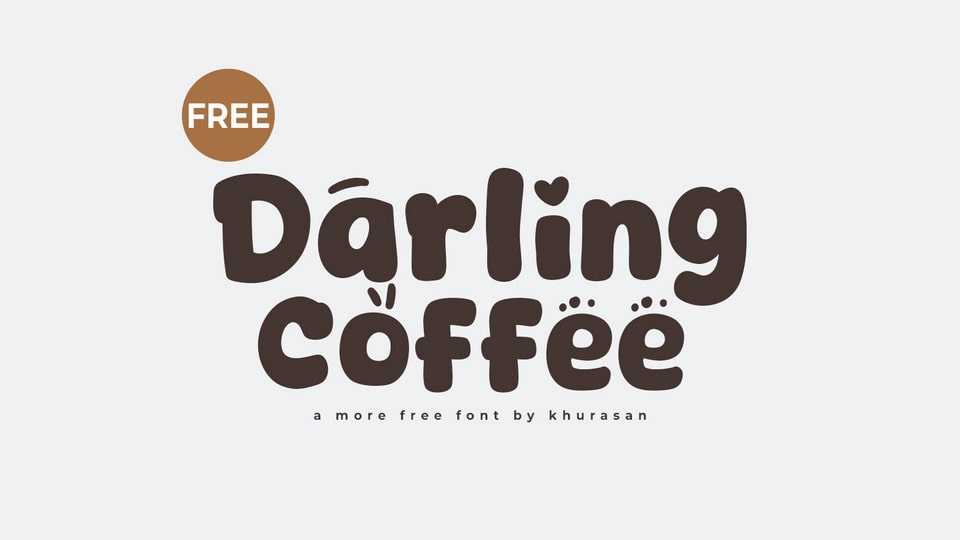
Download Darling Coffee font, a cute and playful hand-drawn cartoon typeface that radiates warmth and friendliness. It features whimsical, irregular letterforms with soft, rounded edges, capturing the charm and spontaneity of hand-drawn sketches.